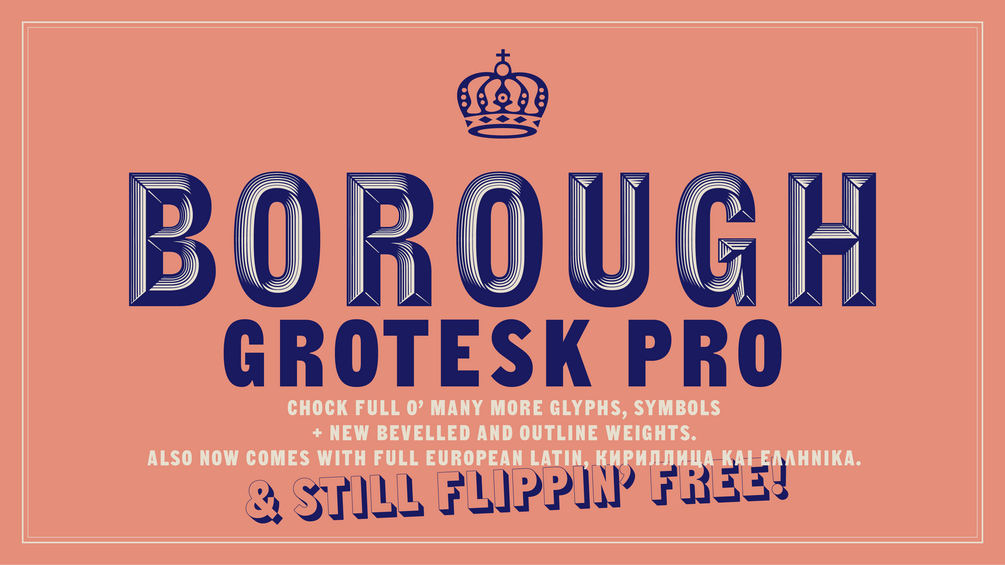
Borough Grotesk Pro
Borough Grotesk Pro is an update of the sans-serif shaded Borough Grotesk. It now has all the upper-case Euro-Latin characters, Cyrillic and Greek. Plus an outline and engraved weight. This makes for a nifty set of layer-able, gaslight-style fonts.
There's also a lot more glyphs and some symbols too, like crowns, thistles and roses ... sourced from the Stephenson Blake 1953 catalogue.